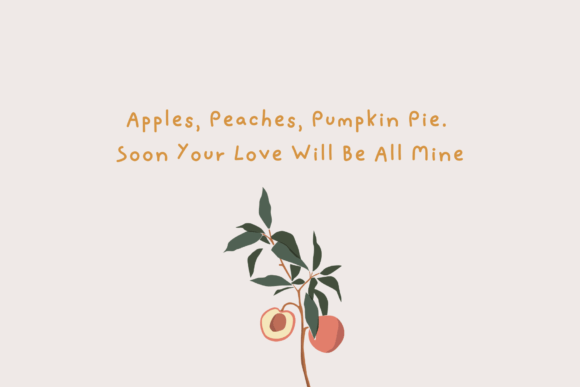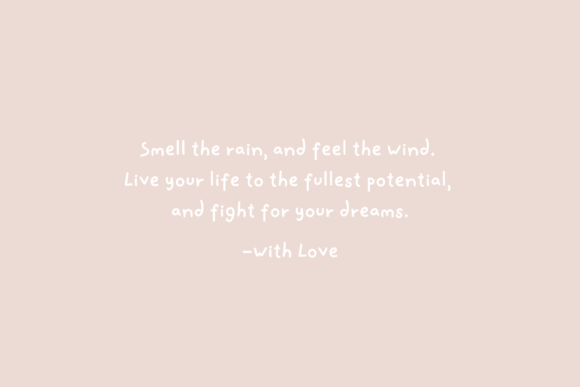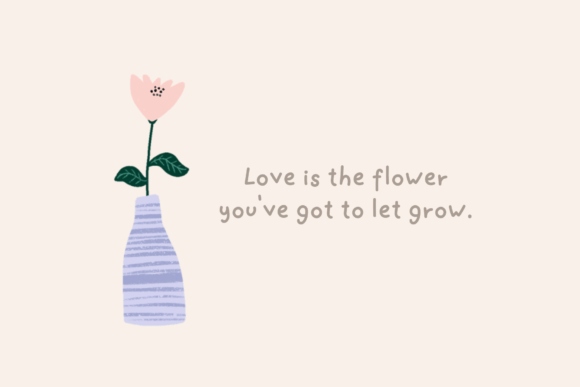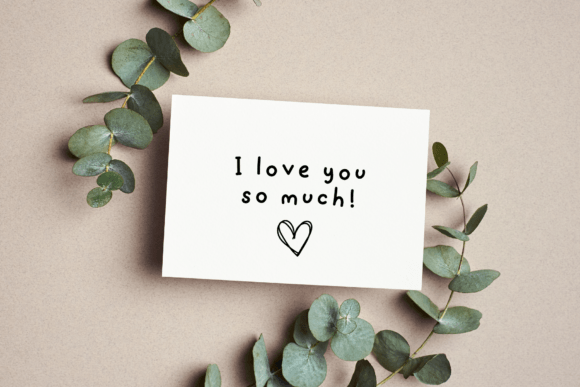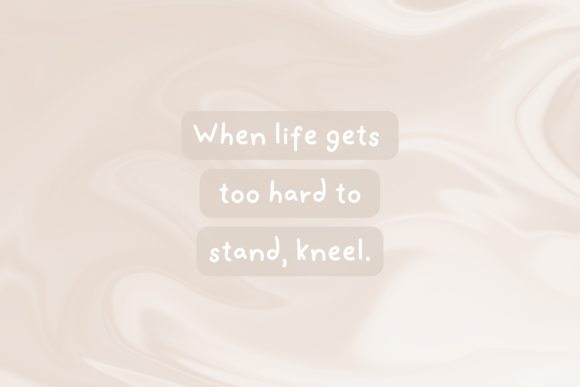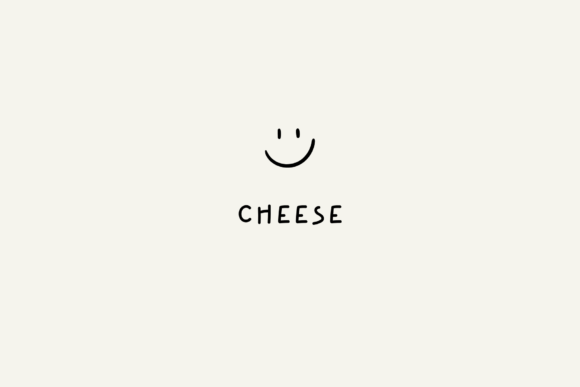
Introduction to Note Books Font
Do you remember that moment when you stumbled upon the perfect font for your project, and suddenly, everything just clicked? For designers, that ‘aha’ moment is priceless. It’s the spark that ignites creativity and brings a project to life. If you’re on the hunt for a font that will add a touch of whimsy and charm to your designs, look no further than the Note Books Font.
This adorable font is a treasure trove for designers seeking high-quality design resources. With a transparent background and a free download option, it’s an ideal addition to any creative project. Whether you’re crafting greeting cards, invitations, social media graphics, or branding materials, the Note Books Font will infuse your work with a playful energy that’s sure to captivate your audience.
Key Features of Note Books Font
- High-quality design with a unique, handwritten style, perfect for creative projects.
- Comes in a single weight, making it easy to use in various design contexts.
- Designed to work well with a range of colors and backgrounds, making it a versatile design resource.
Honest Review: Note Books Font
I recently had the chance to work with Note Books Font for a creative project and I must say, it was a pleasant experience. The font is a high-quality design resource that can definitely elevate your work. One of the things that caught my attention was the transparent background, which made it easy to integrate with my design.
Here are some things that work well with Note Books Font:
- High-quality design: The font is crisp and clean, making it perfect for print and digital projects.
- Transparent background: This feature allows for seamless integration with your design, making it easier to create a cohesive look.
- Limited character set: Note Books Font has a limited character set, which may not be suitable for projects that require a wide range of characters.
- No bold or italic styles: The font only comes in regular style, which may limit its versatility.
Overall, I was impressed with Note Books Font and would definitely recommend it for creative projects. While it has some limitations, its high-quality design and transparent background make it a valuable resource for designers.
Note Books Font
Use Note Books Font in conjunction with other design resources, such as graphics and textures, to create unique and engaging designs. Experiment with different font sizes and styles to achieve the desired look, and don’t be afraid to try out new and creative combinations.
Note Books Font is ideal for creative projects, such as invitations, posters, and social media graphics. Its high-quality design and transparent background feature make it particularly useful for creating visually appealing and professional-looking designs.